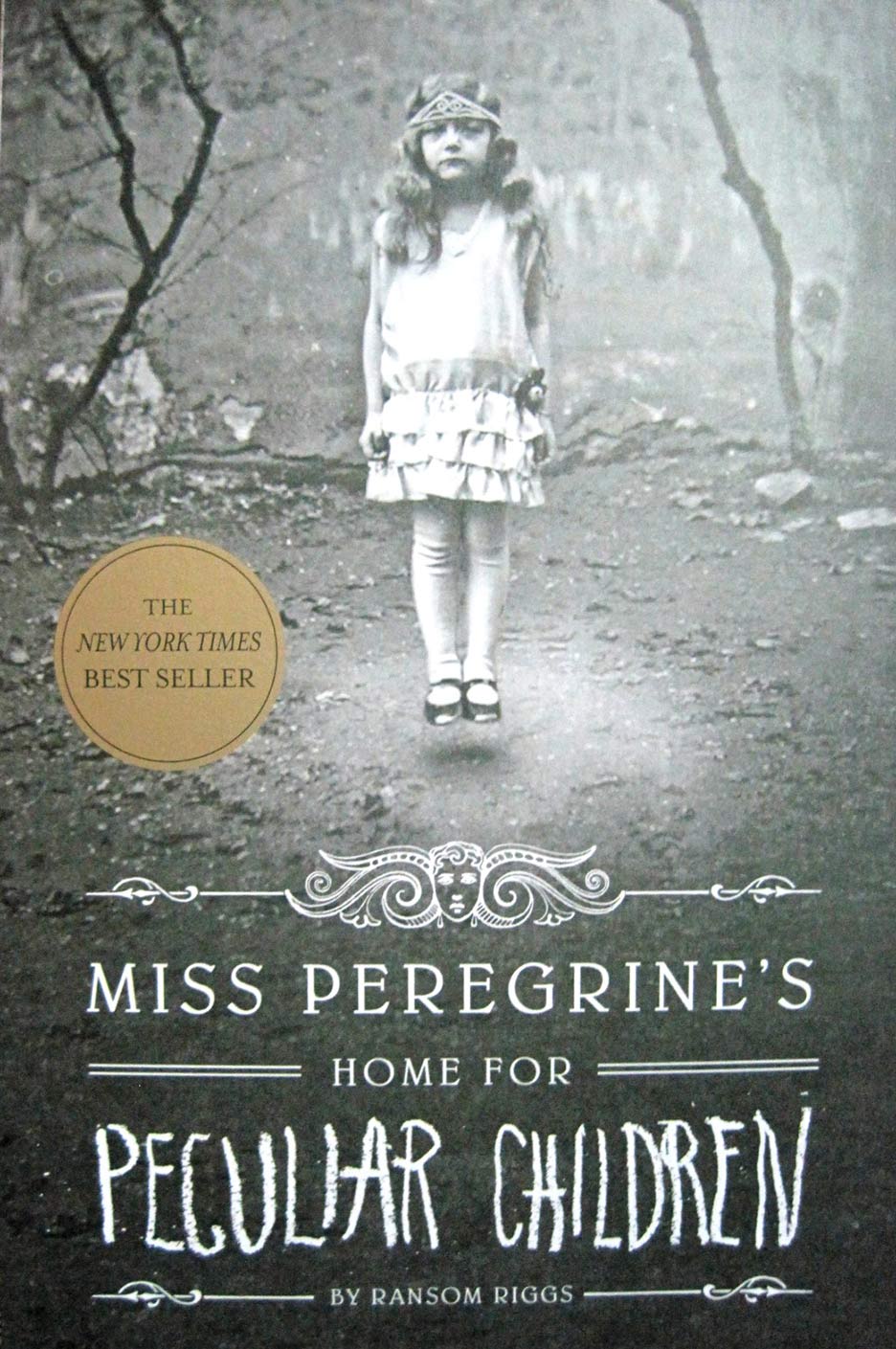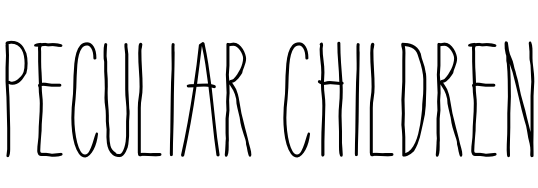
Peculiar Children Font
BookMiss Peregrine’s Home for Peculiar Children is a young adult fantasy novel series written by Ransom Riggs. The series follows a group of orphaned children with extraordinary abilities, known as "peculiar children," who are living in a hidden home in rural Wales. The series includes three books: Miss Peregrine's Home for Peculiar Children, Hollow City, and Library of Souls.
Belwe Light, created by Georg Belwe, is the serif typeface used for the book's title. The best match we can find for the "Peculiar Children" part, which is probably handwritten, is York Handwriting by Thinkdust or Aracne Condensed Regular by Antipixel. Americana, a serif font created by Richard Isbell in 1966 for American Type Founders, is used for the title (serif portion) shown on the movie poster.